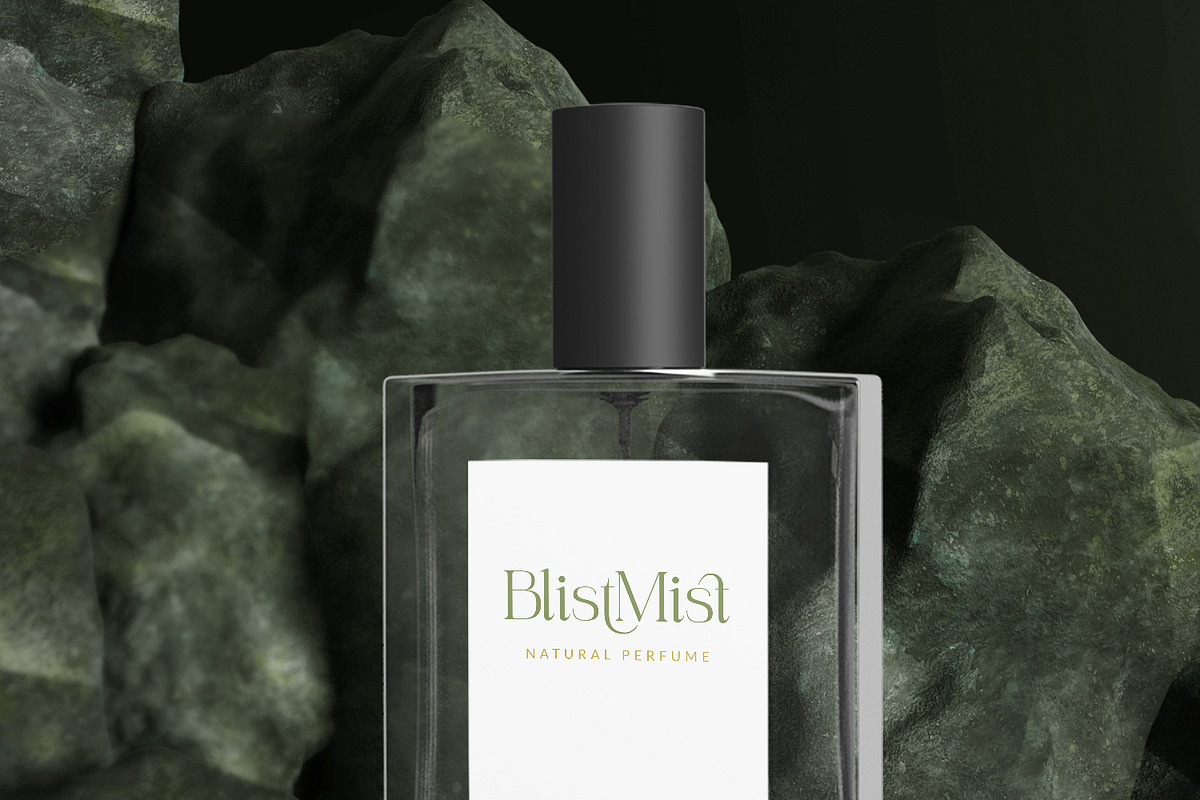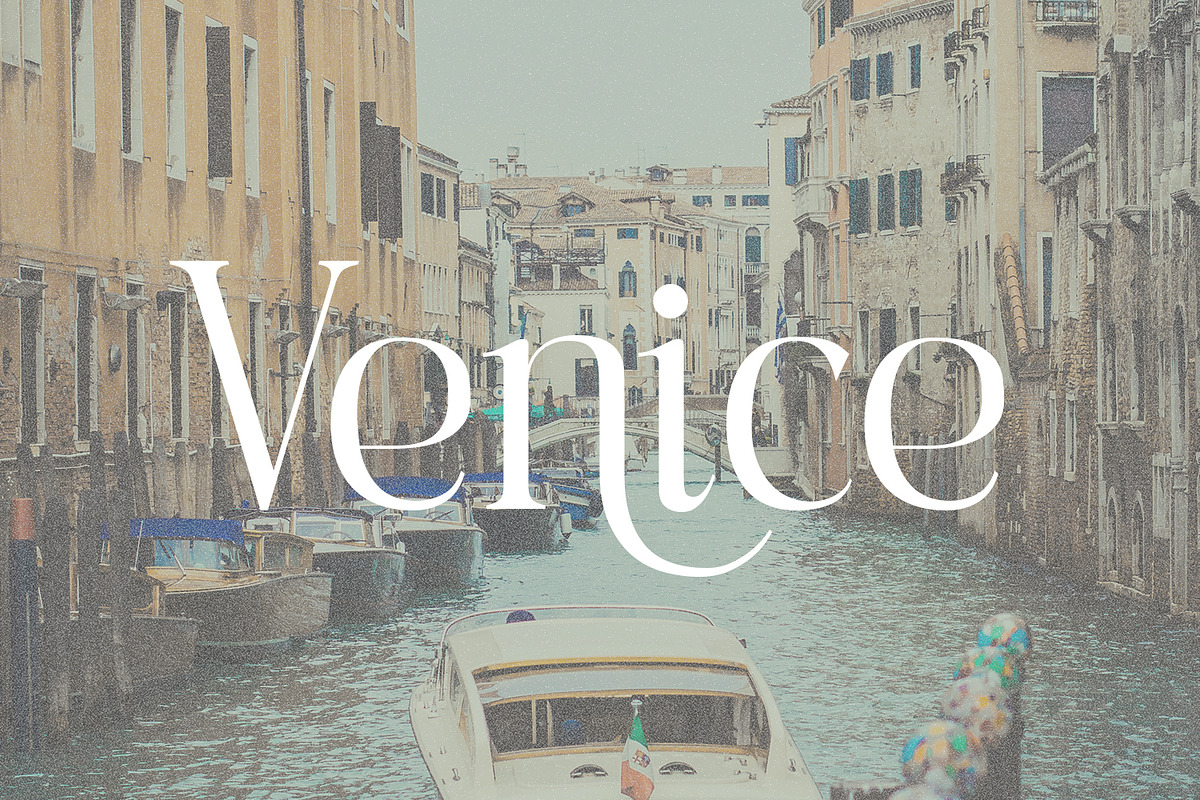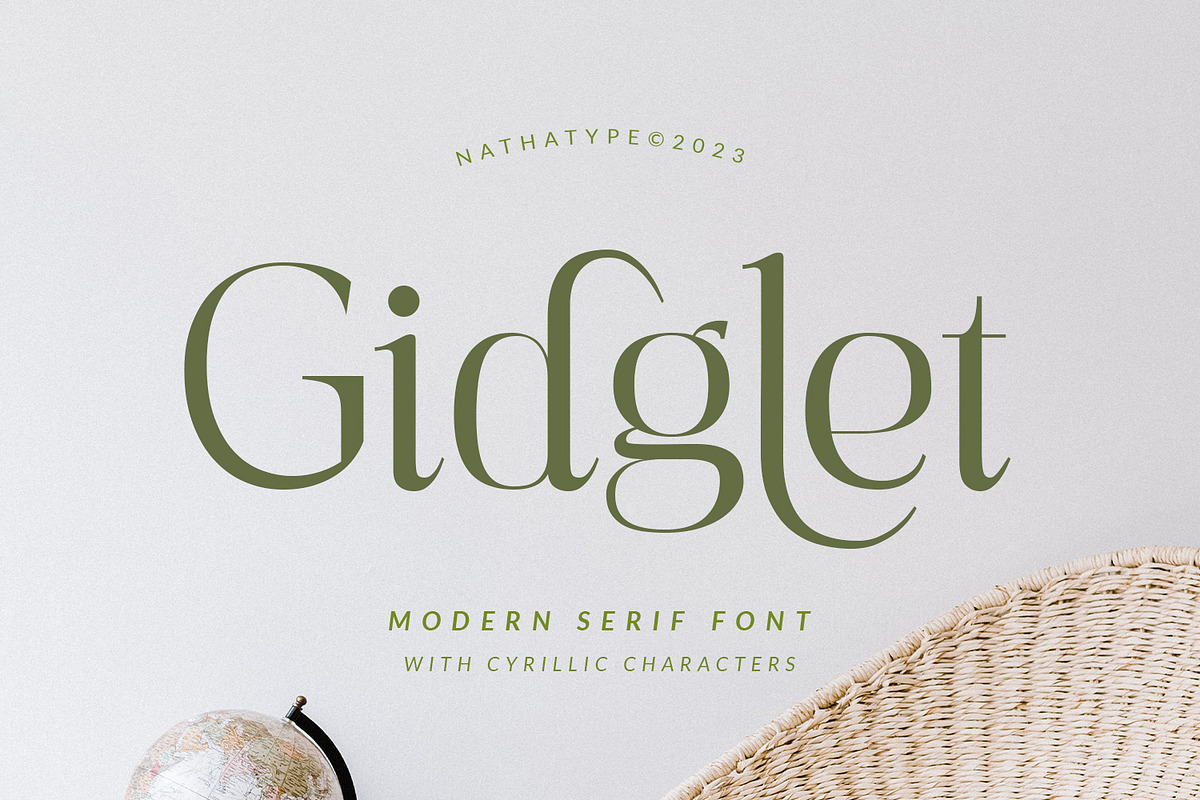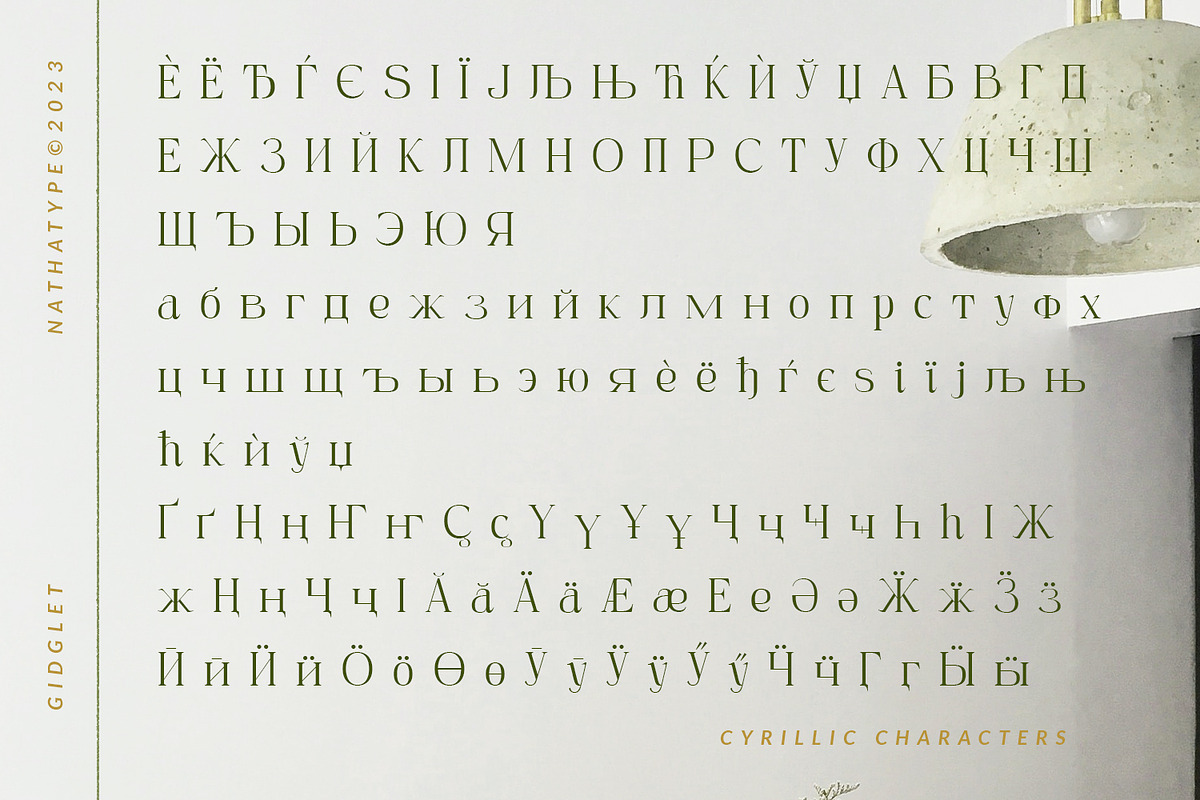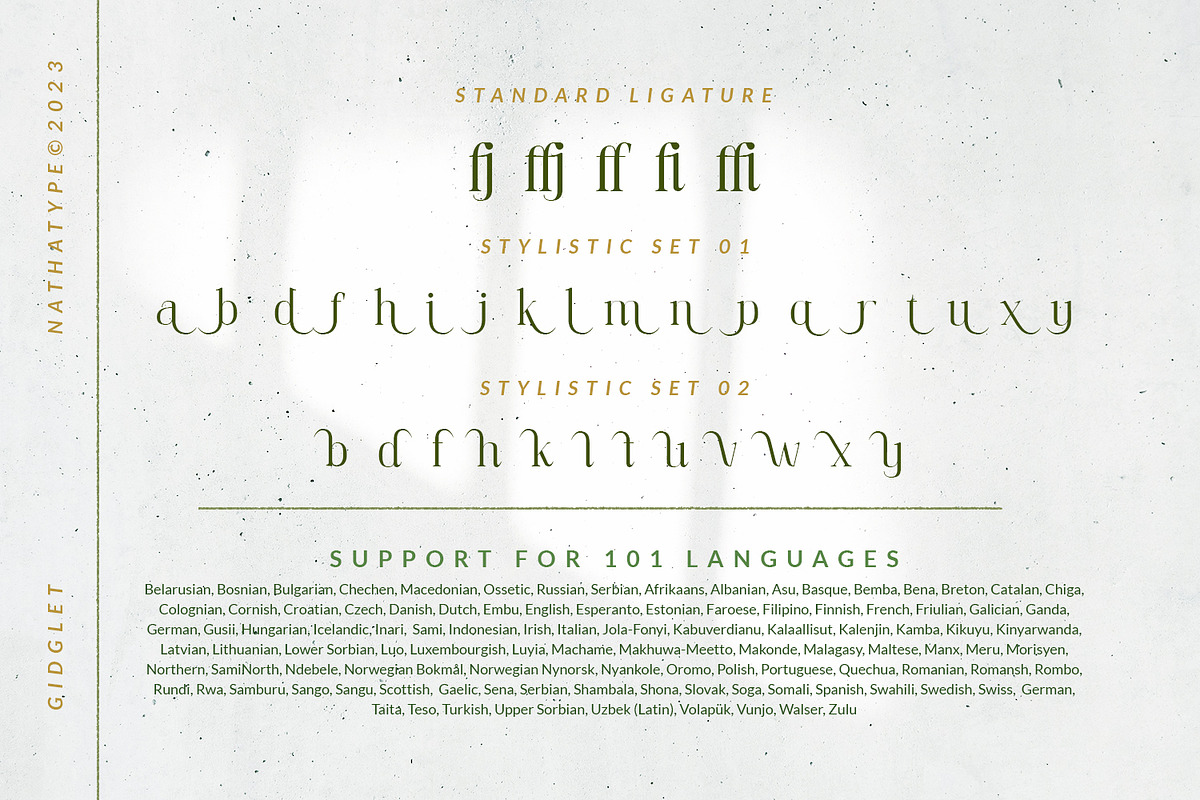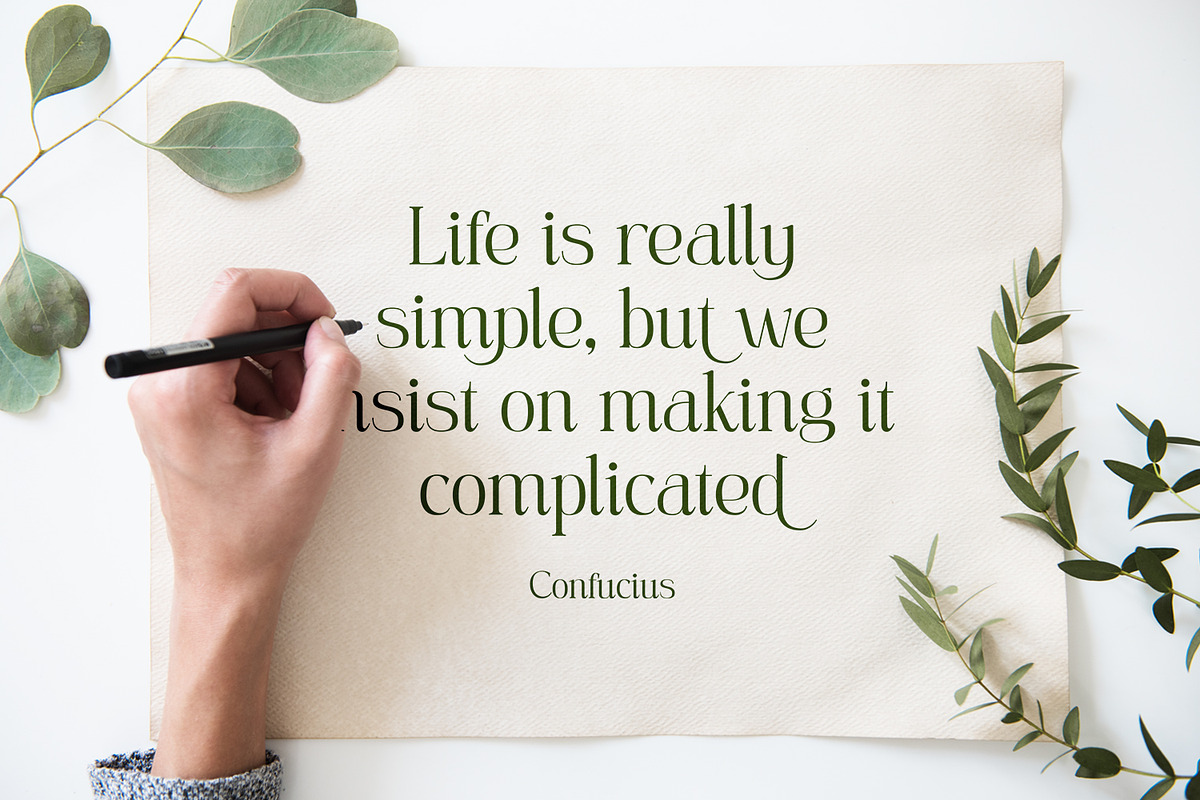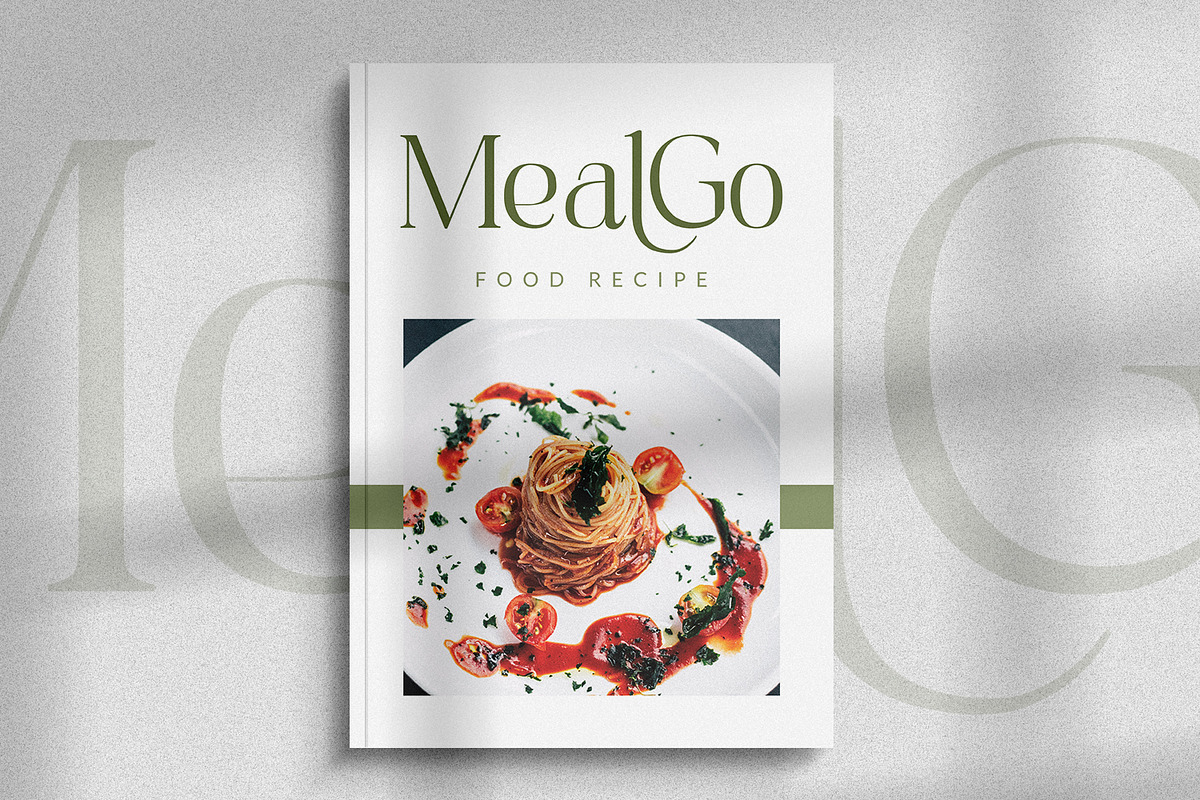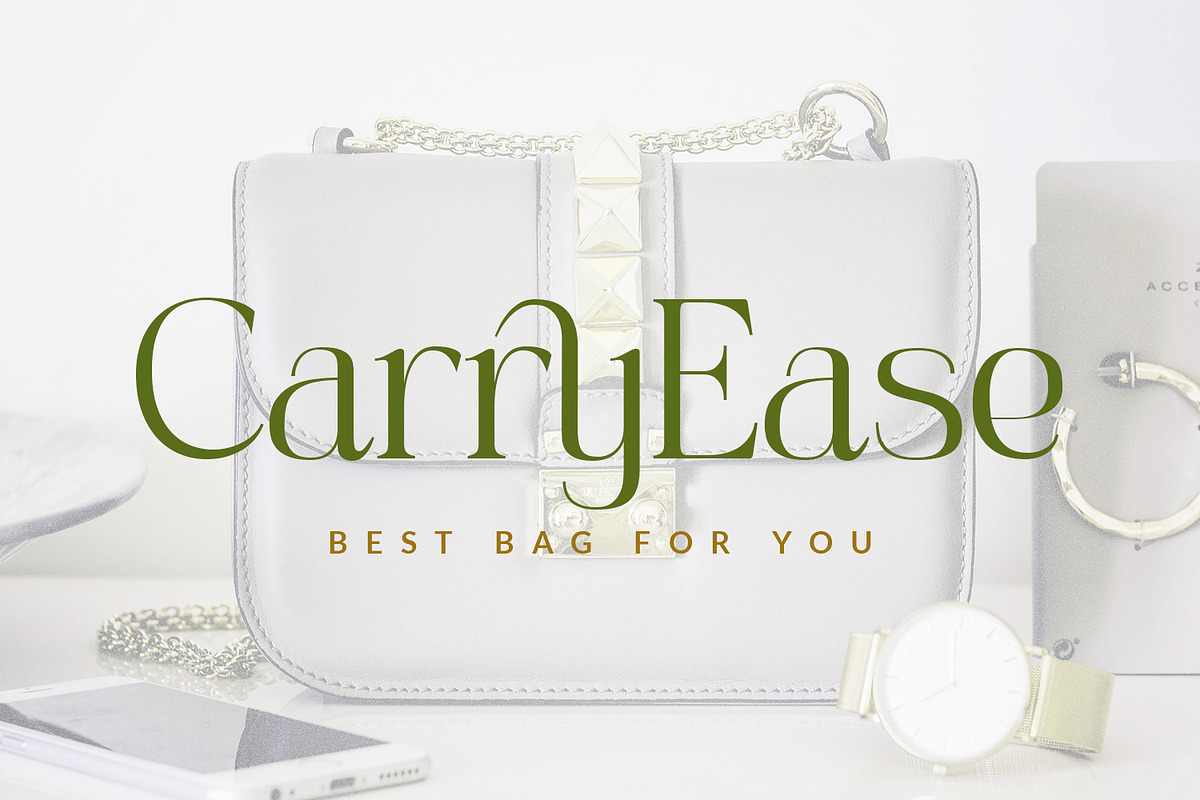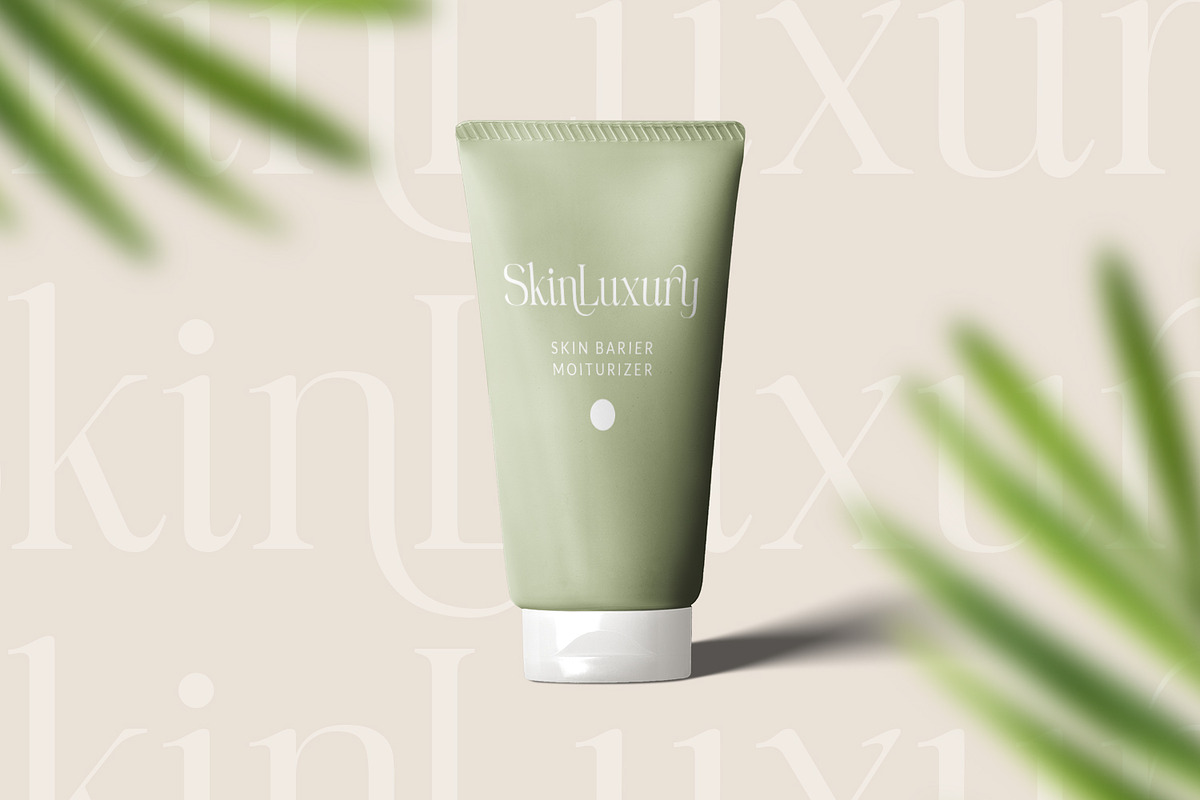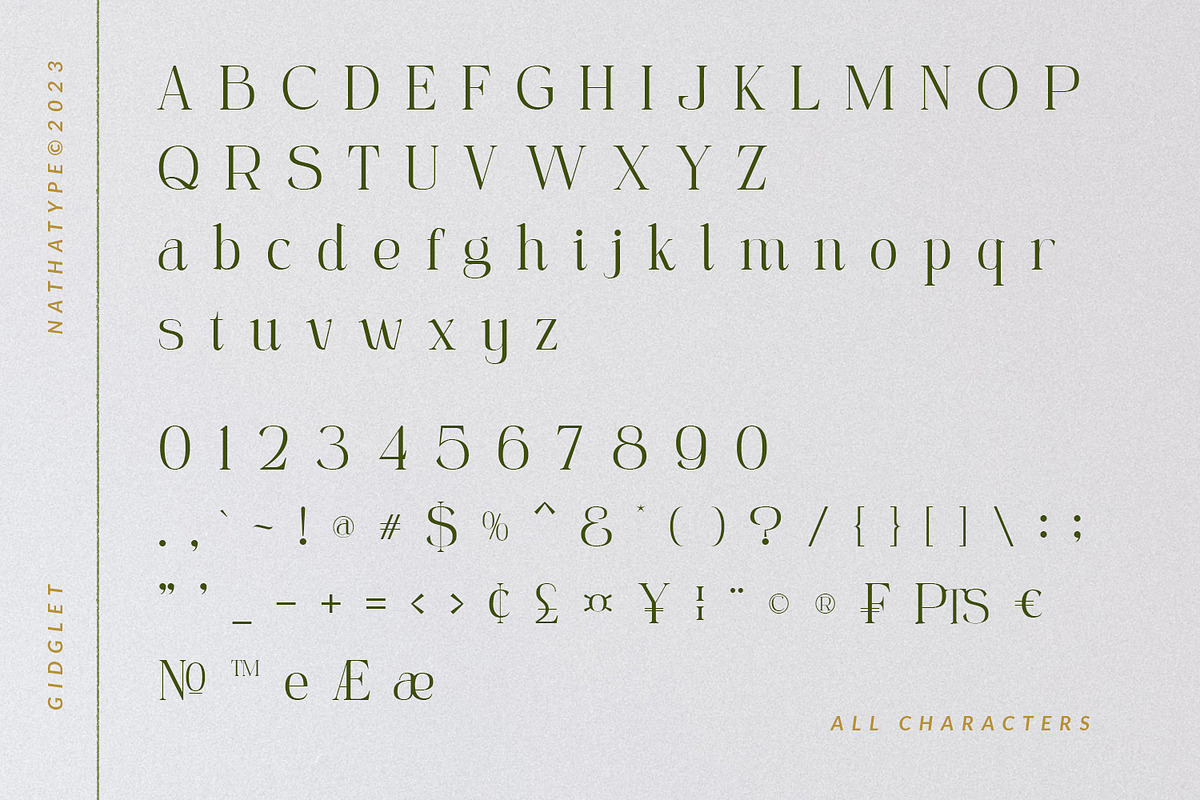
Gidglet
Gidglet is a serif font highlighting the height differences of the letters’ thick and thin parts, and has elegant, clear letters. Little hooks and lines on the letter edges show classical, traditional nuances to your designs. Moreover, the thick and thin letter parts are clearly seen in a high contrast serif font. The thin letter lines show elegant characteristics, while the thick ones express firm, clear nuances.
Such high contrasts between the thick and thin parts add dimensions and prominence to the designs. As a result, such a font is perfectly applicable for designs with formal, elegant, professional impressions in big text sizes in order for the beauty and the contrasts of such thick and thin parts to be clearly seen. In addition, you may enjoy the available features here as well.
- Stylistic Sets
Gidglet fits best for various design projects, such as brandings, quotes, invitations, name cards, greeting cards, printed products, merchandise, social media, etc. Find out more ways to use this font by taking a look at the font preview.